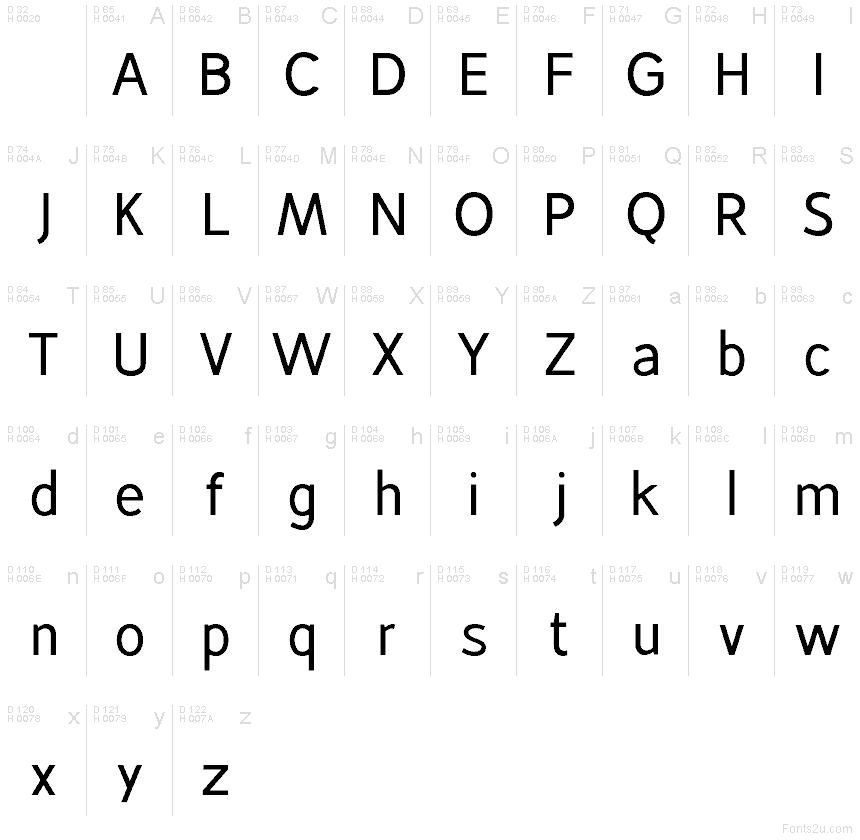
CS Melchior Regular Demo
CS Melchior font by Craft Supply Co. is a free sans serif font that solves the tricky balance between warmth and precision. Its smooth, inky curves meet crisp joins, with open counters and a calm, even rhythm that reads clean at size yet still feels human. Slightly tightened spacing keeps headings compact while the soft terminals prevent it from turning clinical.
Using CS Melchior, interfaces feel organized, pitch decks stay readable, and brand systems gain a steady, modern voice. This free font shines on app UIs, dashboards, packaging, signage, editorial subheads, and social graphics where clarity matters. Set headlines a touch larger for generous breathing room, and pair it with a light, serif companion for contrast in long-form copy.